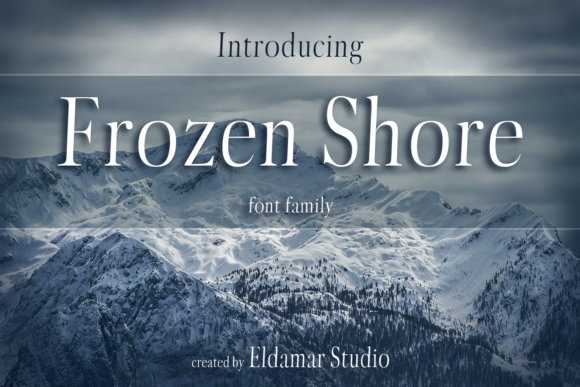
Frozen Shore Font: Elevating Small Business Branding
Last Tuesday, I was sitting at my kitchen table with a stack of unbranded kraft boxes and a roll of plain white labels. As a small business owner selling handmade soy candles, I knew my product smelled amazing, but the packaging looked... well, generic. It didn't tell the story of quality and care that went into every jar. I needed a refresh, something that screamed "premium" without costing a fortune in custom design fees. That is when I stumbled upon Frozen Shore, a tall and elegant serif font that completely changed how I approached my brand identity.
If you are a creative consultant, a boutique owner, or anyone trying to make their small business look more polished, you know the struggle of finding the right typeface. You want something unique but readable, stylish but not distracting. Frozen Shore fits that sweet spot perfectly. It is not just a font; it is a tool for building trust. When a customer picks up your product or visits your online shop, the first thing they notice isn't your logo mark—it is your typography. The way your words sit on the page tells them whether you are a professional operation or a hobbyist guessing their way through.
Why Typography Matters for First Impressions
In the world of retail and e-commerce, you often have less than three seconds to make an impression. I decided to test Frozen Shore on my new candle labels before committing to a full rebrand. The result was immediate. The tall stature of the letters gave the design a sense of vertical elegance, making the limited space on a round jar feel expansive and luxurious. Unlike some decorative fonts that sacrifice readability for flair, this serif font maintains excellent clarity even at smaller sizes.
Think about your own customer touchpoints. Whether it is a café menu, a thank-you card included in a shipment, or an Instagram story highlight cover, consistency is key. Using a premium font like Frozen Shore across all these materials creates a cohesive visual language. It signals to your audience that you pay attention to details. If your website banner uses one style and your packaging uses another, it creates cognitive friction for the buyer. By sticking to one strong typeface family, you streamline the customer experience and make your brand feel established and trustworthy.
Real-World Applications for Product Creators
One of the best things about Frozen Shore is its versatility. While I used it for candle jars, I can easily see how it would transform other industries. Imagine a bakery using it for the titles on their cake boxes. The elegant serifs add a touch of sophistication that suggests high-quality ingredients. Or consider a skincare brand; applying this font to minimalist bottles instantly elevates the perceived value of the serum inside.
Here are a few specific ways I envision this font working for different business needs:
- Packaging Design: Perfect for product names on boxes, bags, and jars where you need a display font that commands attention.
- Social Media Graphics: Use it for quote cards or promotional headers on Instagram and Pinterest to stop the scroll.
- Printed Collateral: Ideal for business cards, flyers, and menus where a classic yet modern look is required.
- Web Design: Excellent for hero sections and H1 headers on your homepage to set a refined tone immediately.
The key is knowing when to use it. Frozen Shore shines as a display font. It is best suited for headlines, short phrases, logos, and packaging titles. It might not be the best choice for long paragraphs of body text on a website, where a clean sans serif font would offer better readability over long distances. However, for those punchy moments where you need to grab attention, it is unbeatable.
Creating a Cohesive Brand Identity
When I started pairing Frozen Shore with other elements of my design, the magic really happened. A common mistake small business owners make is trying to make every element stand out. In reality, great design is about balance. I paired this elegant serif with a simple, geometric sans serif font for the ingredient lists and weight descriptions on my labels. The contrast between the tall, characterful headers and the neutral body text created a hierarchy that guided the eye naturally.
You could also experiment with pairing it with a delicate script font or a handwritten font for accents, like a "Handmade with Love" stamp on a tag. This combination of structured serif and fluid script adds a human touch that resonates deeply with customers looking for authentic, artisanal products. Just remember to keep the pairings limited. Stick to two, maybe three fonts maximum to maintain that clean, professional look.
Additionally, check the file formats included. You will likely want OpenType (.otf) or TrueType (.ttf) files for desktop use in programs like Adobe Illustrator or Canva. If you are a web designer, ensure there is a webfont version available for your site. It is also worth exploring if the font includes alternates or ligatures. These subtle variations allow you to customize certain letter combinations, giving your logo or headline a unique fingerprint that no one else has. Multilingual support is another bonus if you ship internationally or have a diverse customer base.
Ultimately, upgrading your typography is one of the most cost-effective ways to refresh your brand. You do not need to redesign your entire logo or change your color palette. Sometimes, simply swapping out a dated font for something like Frozen Shore is enough to make your business feel new again. It adds that layer of polish that separates the amateurs from the pros. Whether you are launching a new product line, updating your online shop banner, or just want your thank-you cards to feel special, investing in a high-quality serif font is a decision your future self will thank you for. It turns ordinary text into a memorable brand experience.